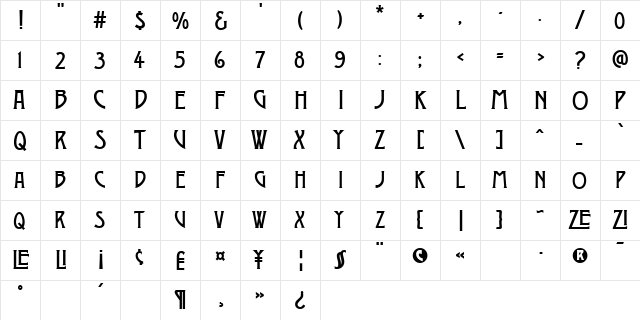
Moderno Two Regular
Design Context for Moderno Two Typeface
Moderno Two takes a measured approach to typography — its balanced proportions and neutral character make it a reliable workhorse for both digital and print work.
Pro Tip: Pair Moderno Two with a font of contrasting weight or personality to build a more expressive typographic hierarchy.